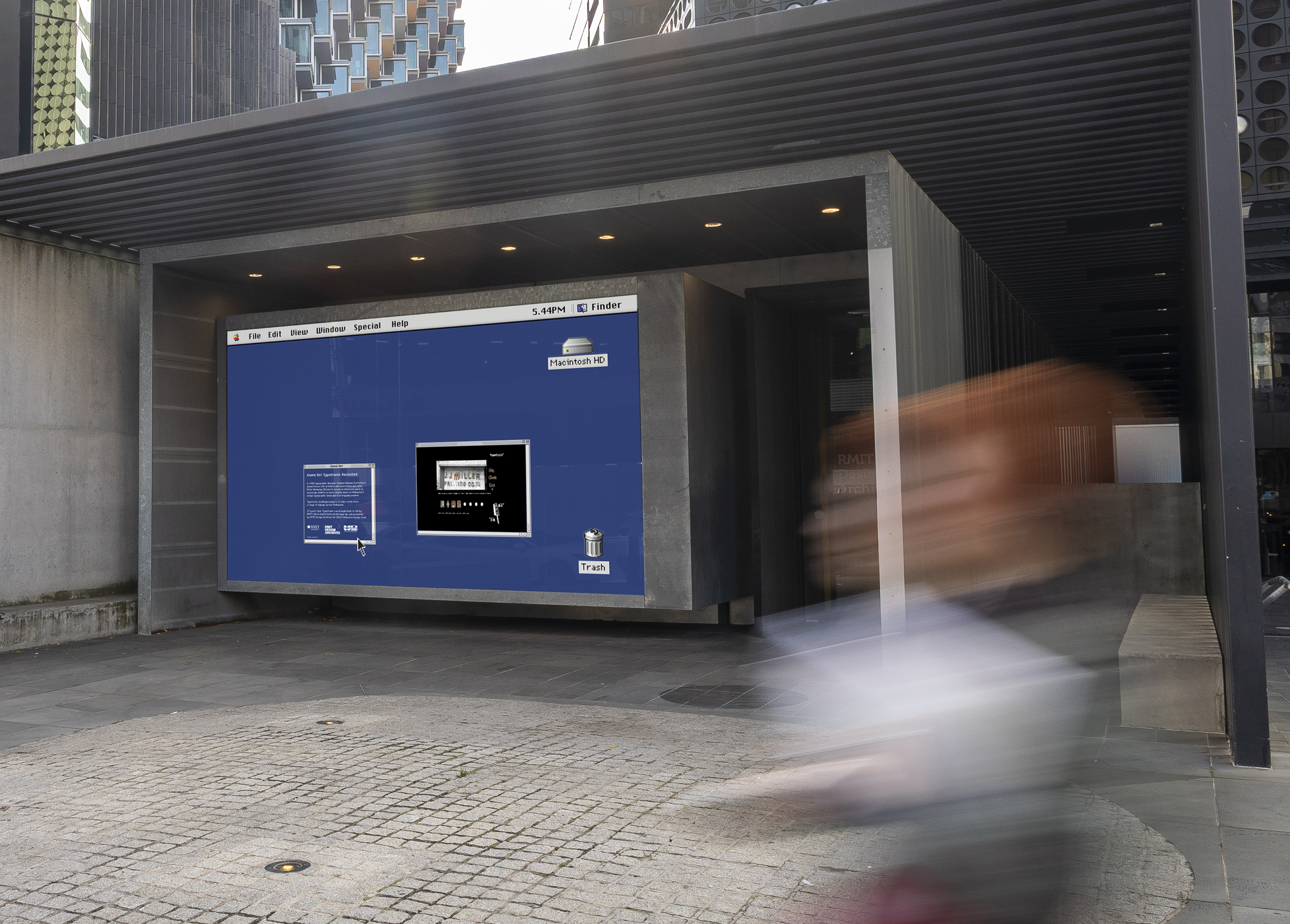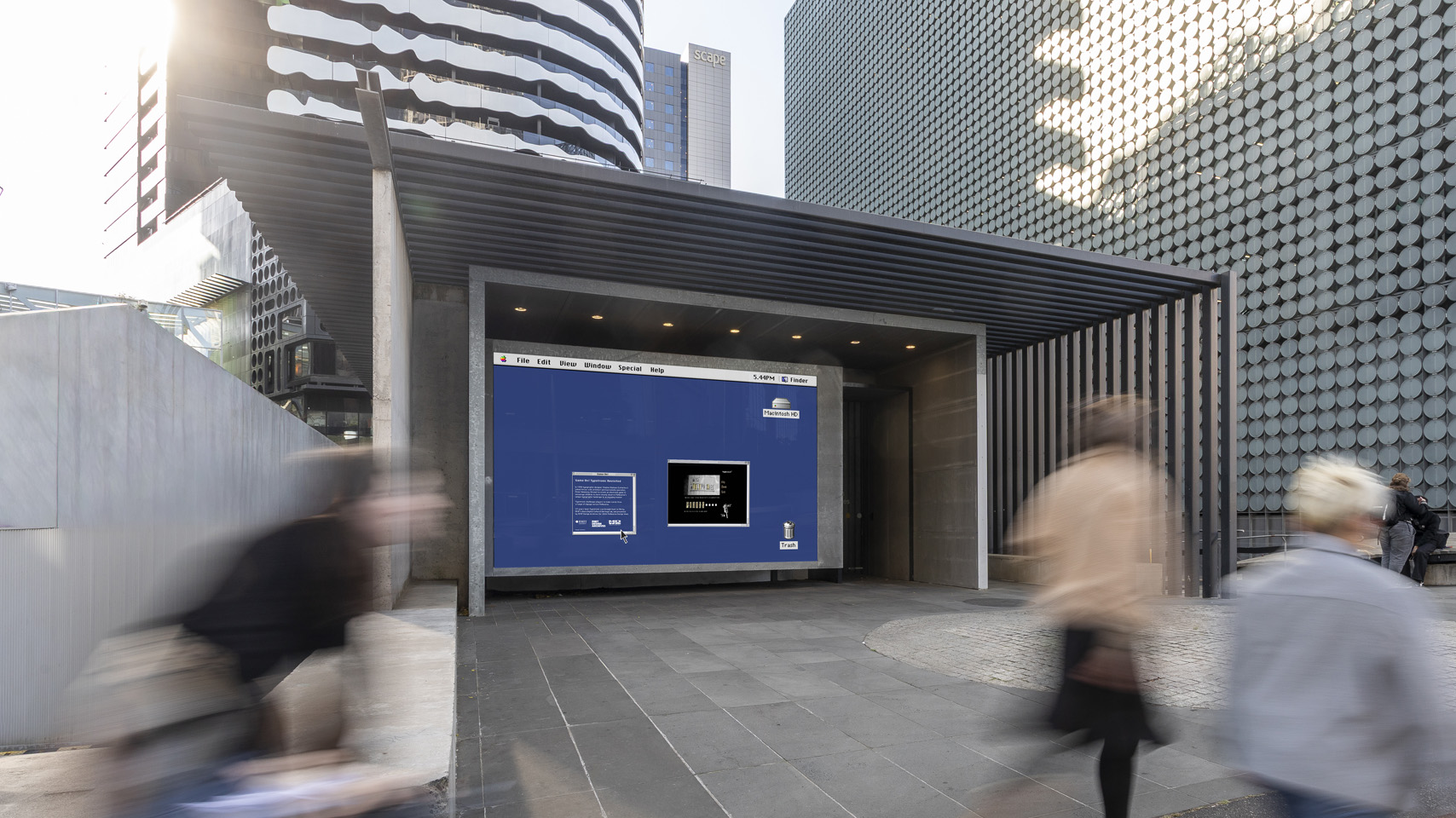
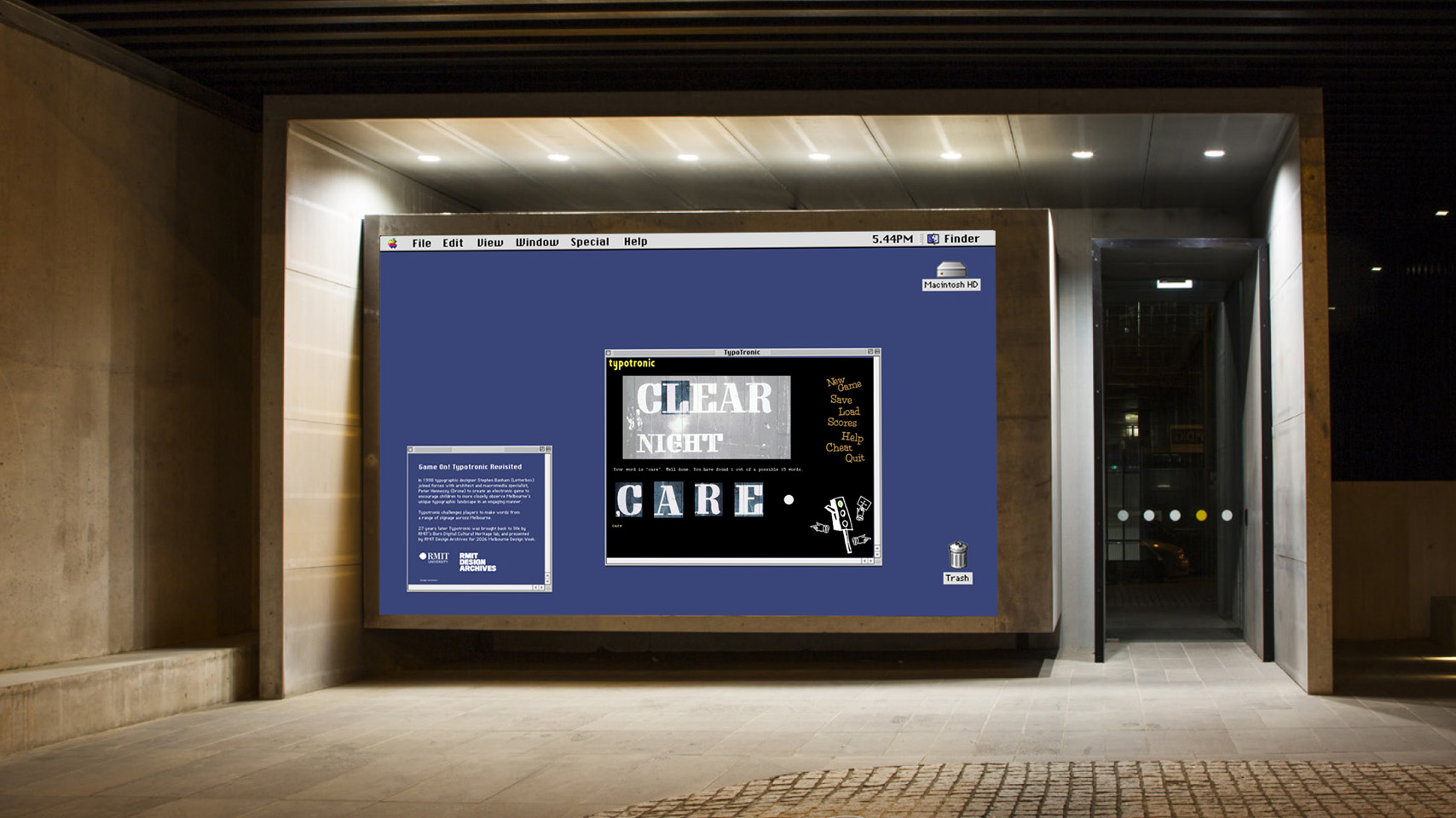
Typotronic
TypoTronic is a digital game developed in 1998 to encourage children to more closely observe Melbourne’s unique typographic landscape by creating words from signage.
This unique fusion of typography and programming was developed when Stephen Banham (Letterbox) joined forces with Peter Hennessy (Drome) to create a game that challenges players to make words from a spectrum of signage across Melbourne – from the well-known (Pelligrini’s) through to the more obscure (the American Donut van at Queen Victoria Market). Following its completion and exhibition in 1998, the game vanished into digital obscurity, existing only in a boxed-up floppy disc.
Twenty seven years later Typotronic was brought back to life by the RMIT Born Digital Cultural Heritage lab as part of a national consortium aiming to providing access to culturally significant born digital artefacts held in archives and collections.
To mark this revival, the RMIT Design Archives exhibited the work in its display window as part of the 2026 Melbourne Design Week complete with a 12m2 reproduction of an Apple OS9 desktop. Gameplay of Typotronic can once again be experienced complete with its original sound effects (including the ‘ding’ of the famous Melbourne trams).
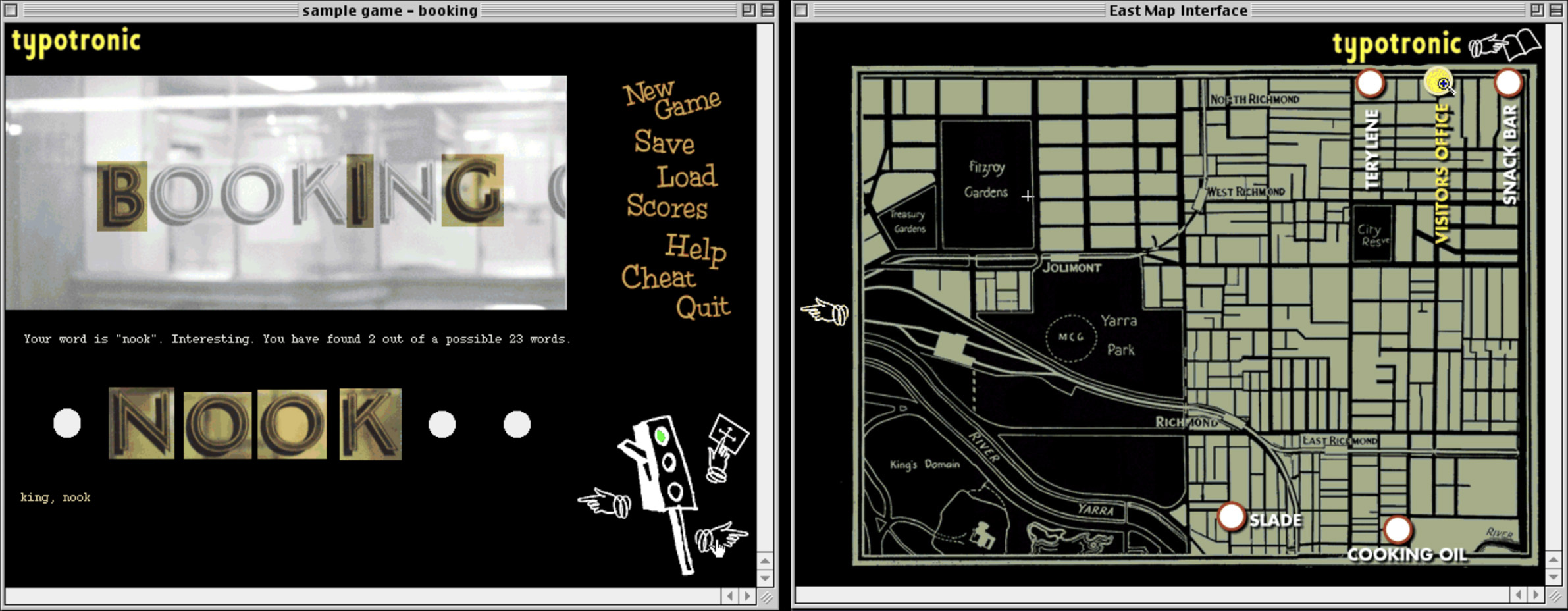
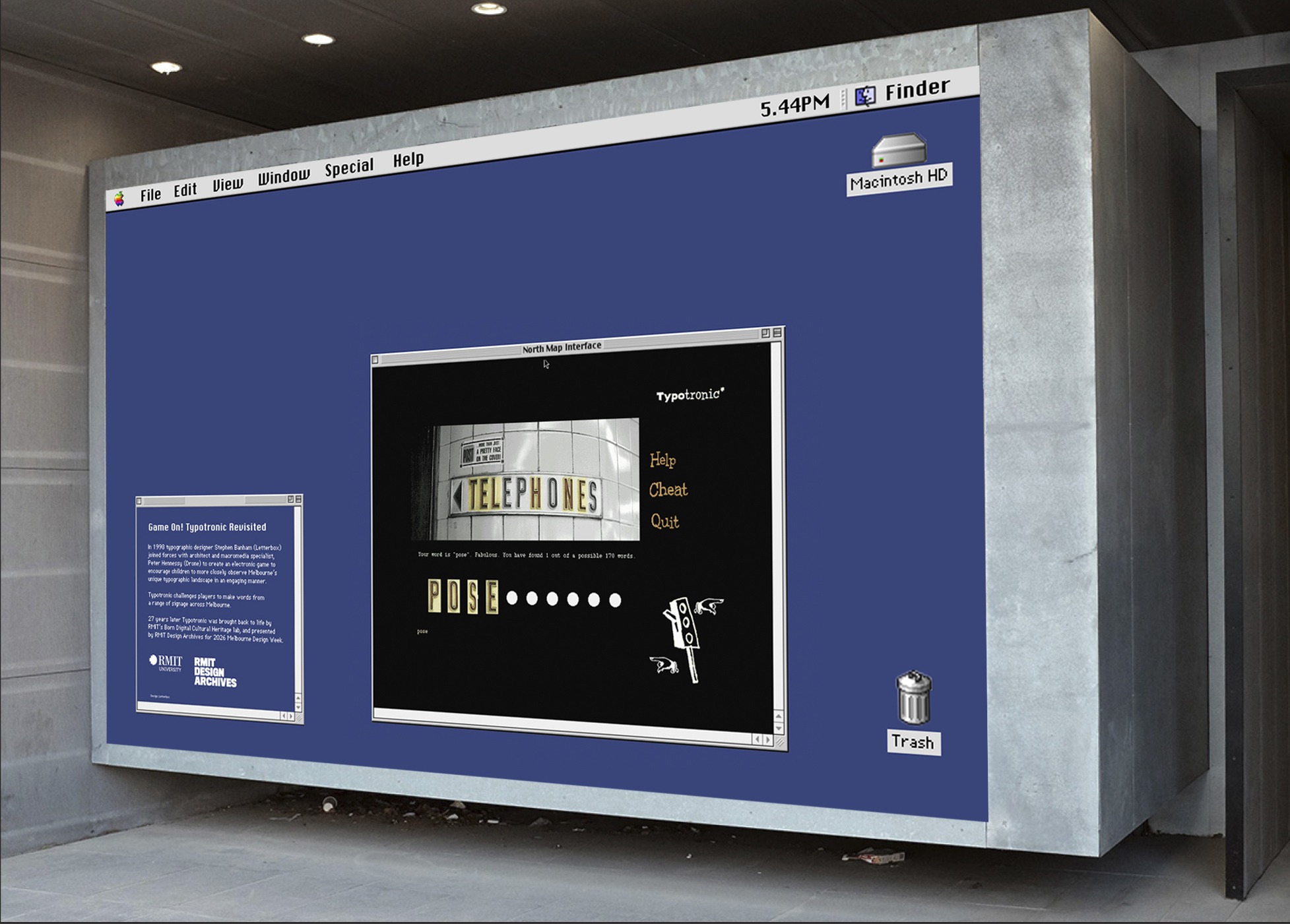
Best played with audio, three minutes of gameplay from Typotronic (1998).
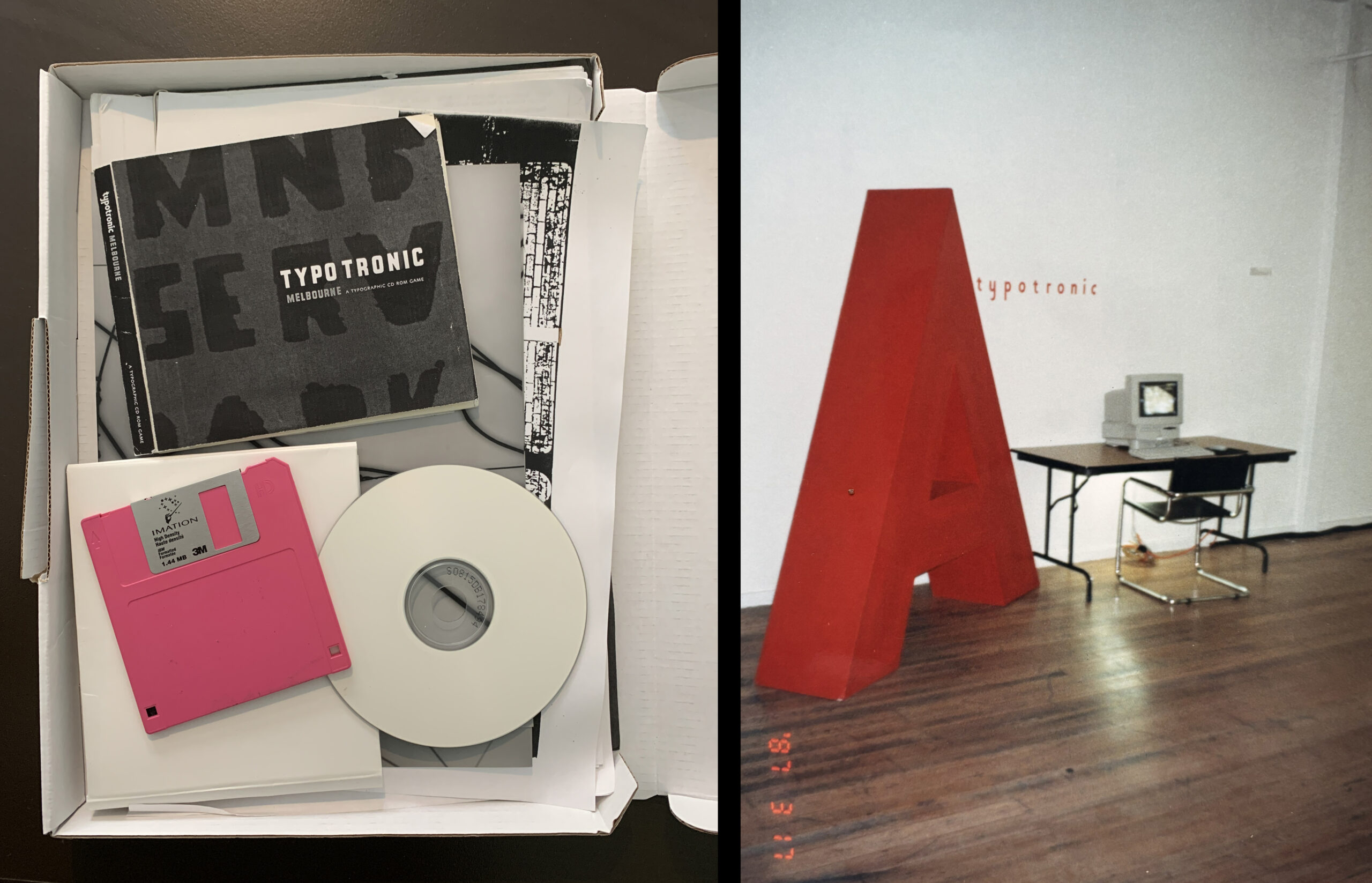
Left: The original archive material of Typotronic. Right: The 1998 exhibition of new digital design projects, complete with the Letterbox studio mascot uppercase A.